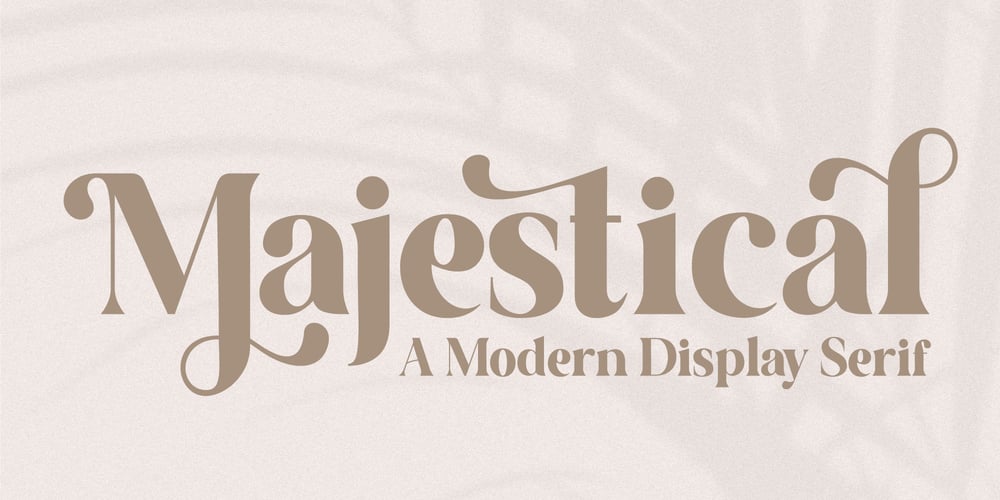
Majestical Font Family was designed by Zak M and published by Prestige Artsy Studio. Majestical contains 1 styles and family package options. Majestical is a timeless font exuding sophistication and refinement. With its delicate serifs and graceful curves, it lends an air of elegance to any design project, from invitations to branding materials. Elevate your aesthetic with the timeless beauty of “Majestical” today.